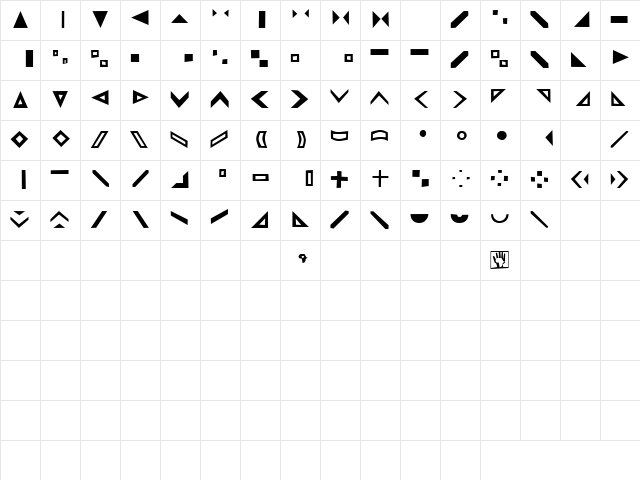
Bfribat 2Tone Two Free Font
Bfribat 2Tone Two
Style: Two
Design Context for Bfribat 2Tone
Bfribat 2Tone is a composed and adaptable typeface that performs quietly and consistently across a wide range of design contexts.